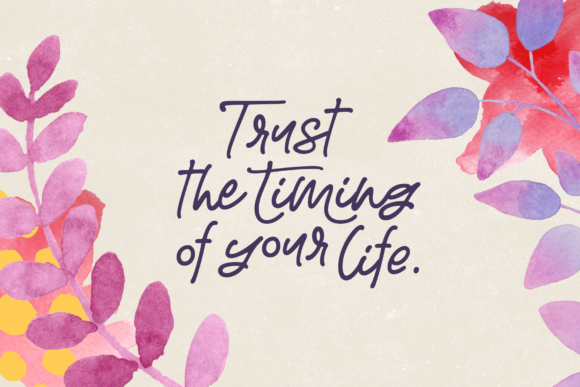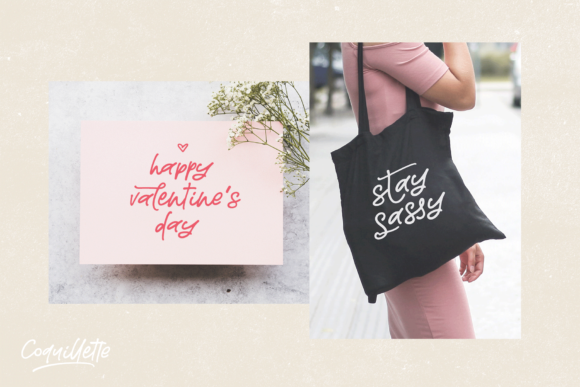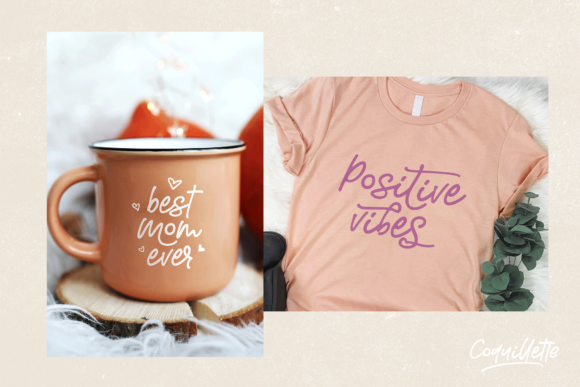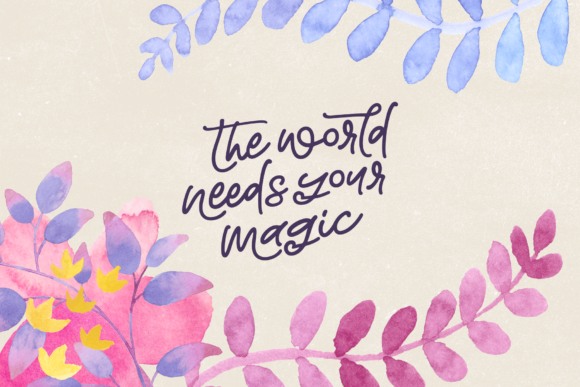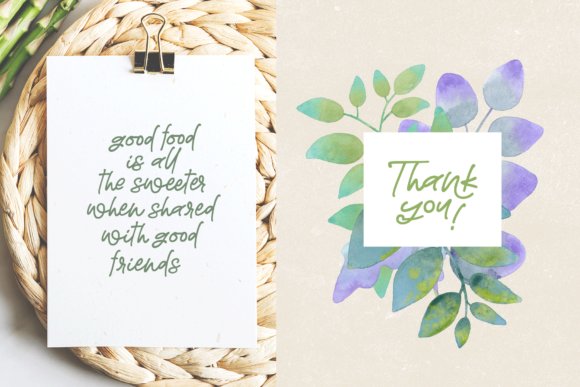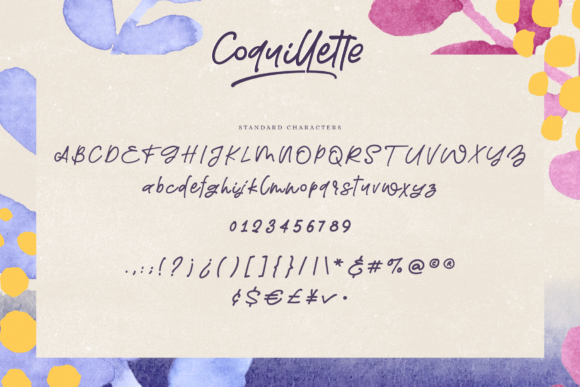
Introduction to Coquillette Font
Coquillette is a sweet, flowing handwritten font.
It looks spectacular on wedding invitations, thank you cards, quotes, greeting cards, logos, business cards and every other design which needs a handwritten touch .
Key Features of Coquillette Font